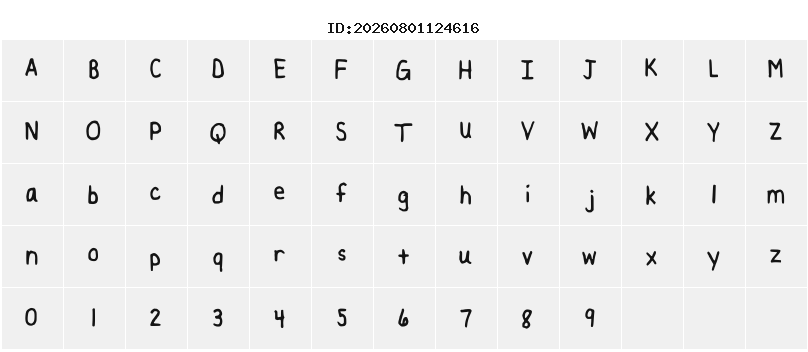
About LESLIE.ttf
LESLIE.ttf is a modern, elegant sans-serif font designed for ultimate readability and visual harmony. Perfect for branding, headlines, web design, and print materials.